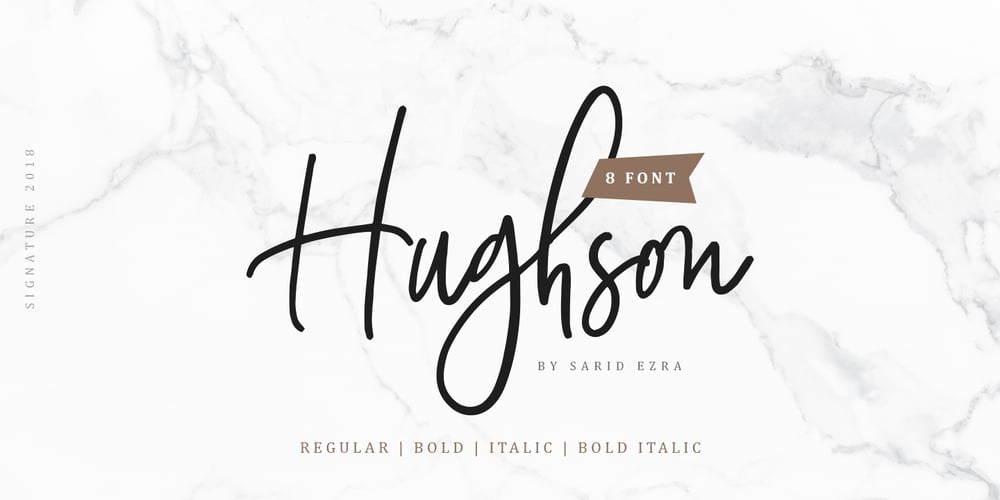
Hughson
Hughson font
Hughson Font Family was designed by Sarid Ezra and published by Sarid Ezra. Hughson contains 8 styles and family package options. Introducing, Hughson Script Family, the newest signature handmade!Hughson Script Family contain 8 FONTS including alternates, Ligatures, and also Underline. Hughson is a signature font that you can use to make a logo for branding, beautiful fashion design, suitable for wedding invitation, or handwritten quote. Also already PUA Encoded.Foreign Languages Support: ÀÁÂÃÄÅÇÈÉÊËÌÍÎÏÐÑÒÓÔÕÖØÙÚÛÜÝßàáâãäåæçèéêëìíîïðñòóôõöøùúûüýÿPS: Type underscore + number (from 1 to 5). Or copy Some_5thing in preview bellow..For another questions, please send a mail to saridezra@gmail.com. Thank You!